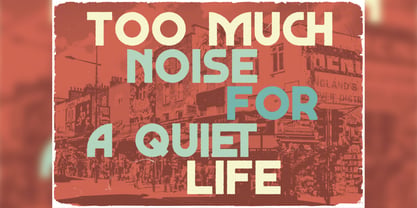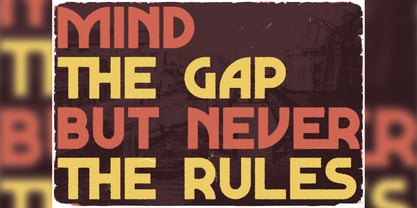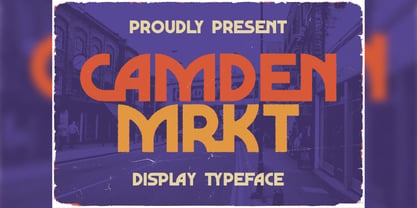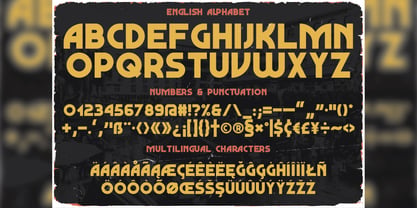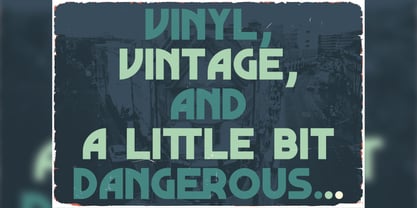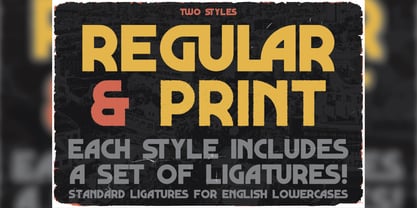
Camden Mrkt
by Vozzy
The Camden Mrkt Font Family was designed by Oleg Voznyy and published by Vozzy. Camden Mrkt contains 2 styles and family package options. More about this family
Introducing the striking font family "Camden Mrkt," designed specifically for headlines, accent inscriptions, and capturing attention. This unique typeface features a diverse range of additional characters, punctuation marks, and multilingual options, ensuring versatility across various languages. With an extensive selection of standard ligatures, Camden Mrkt enhances your typography, provided your software supports OpenType features. Perfect for branding, web design, and editorial projects, this font will elevate your creative designs and make a lasting impression!